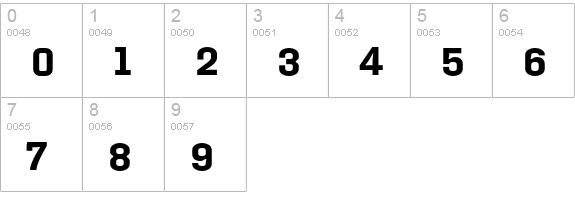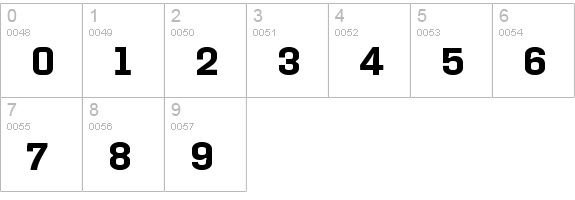
HydraText-Black is a maximum-weight, dramatic variant in the HydraText typeface family \xE2\x80\x94 well suited to maximum-impact headlines, posters, and packaging.
HydraText-Black font is a bold and powerful typeface designed to make a statement in your projects. With its sleek and modern design, this font exudes confidence and professionalism. The thick strokes and sharp edges of HydraText-Black demand attention, making it ideal for headlines, titles, and branding materials. One of the best features of HydraText-Black font is that it is free to download at FontsMarket.com. This means you can add this striking font to your collection without any cost, allowing you to enhance your designs with a premium-quality typeface without breaking the bank. Whether you're creating posters, logos, or website headers, HydraText-Black font will give your projects a bold and impactful look. Download this font for free today and take your designs to the next level.